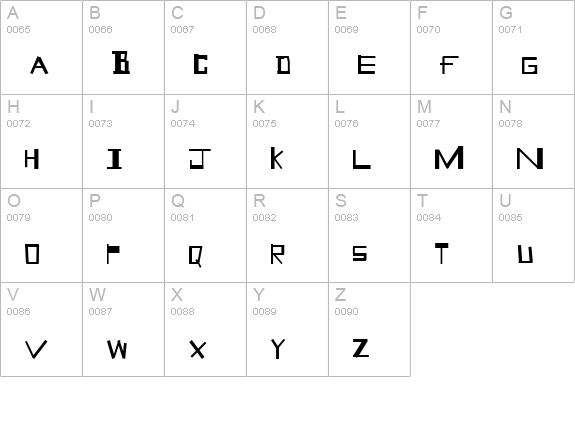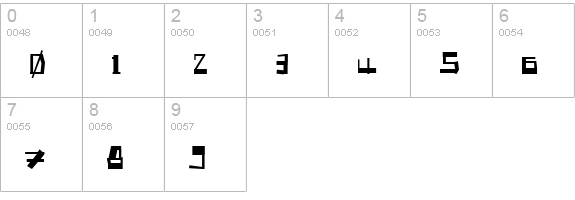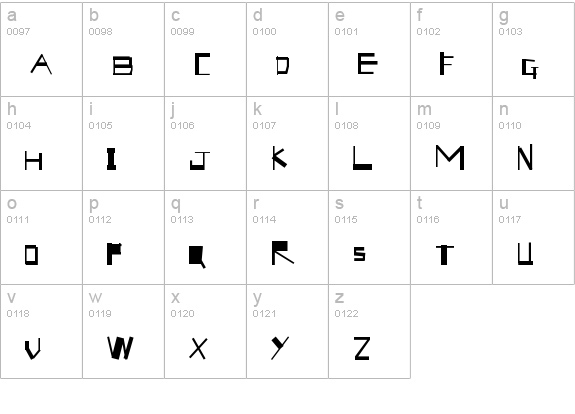
Geek Speek font is a modern and stylish typeface that perfectly captures the essence of geek culture with its sharp edges and futuristic design. This font is ideal for tech-related projects, gaming websites, and any creative endeavor that needs a touch of geeky charm. The best part about Geek Speek font is that it is completely free to download at FontsMarket.com. You can easily access this unique typeface and use it in your personal or commercial projects without any cost. Embrace your inner geek and add a touch of sophistication to your designs with Geek Speek font today!